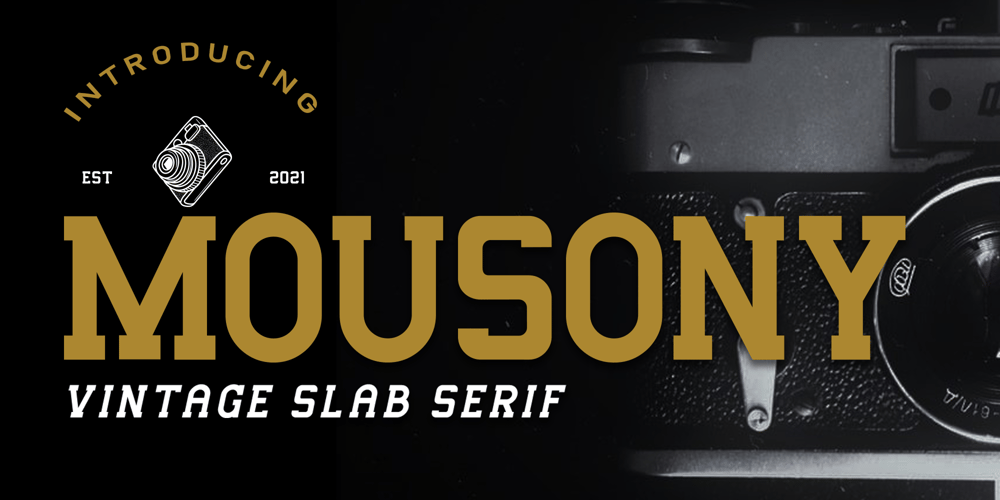
Mousony
Mousony font
Mousony Font Family was designed by Alif Ryan Zulfikar and published by Sakha Design. Mousony contains 2 styles and family package options. Mousony is a bold, vintage styled and thick lettered slab serif font. It will elevate a wide range of crafting ideas, from cards, to branding, labels and much more. Add it confidently to your favorite creations and let yourself be amazed by the outcome generated.